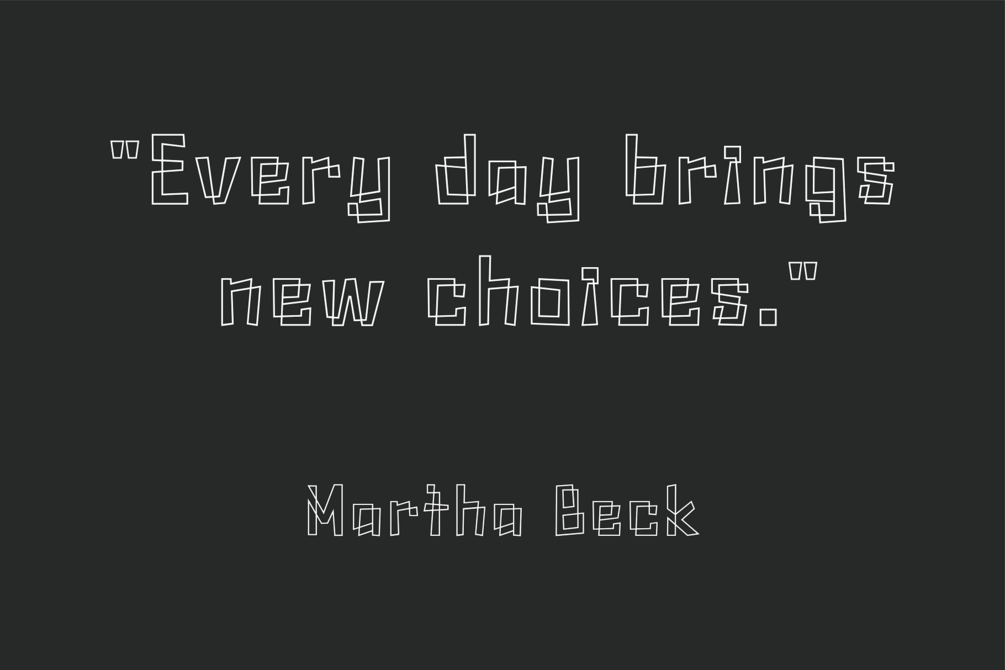
Tangle - Line Art Typeface
Tangle is a beautiful line art typeface. This font is perfect for posters, album covers, graphic designs, social media, magazines, advertising, children books, branding, packaging, stationary, and much more.
It comes with upper and lowercase letters as well as all the special characters you would expect. Tangle is minimal, unique, and most importantly fun. Create something abstract today with Tangle!